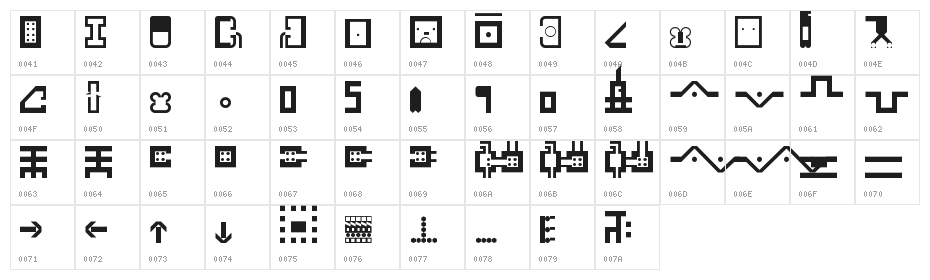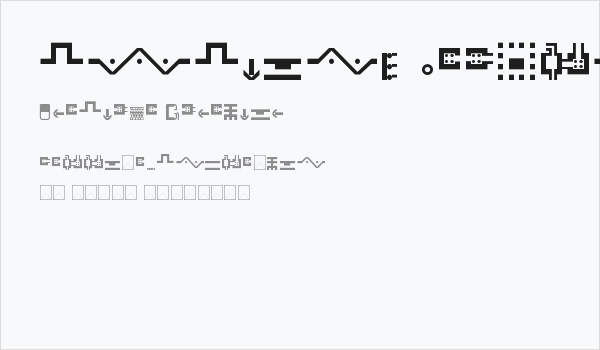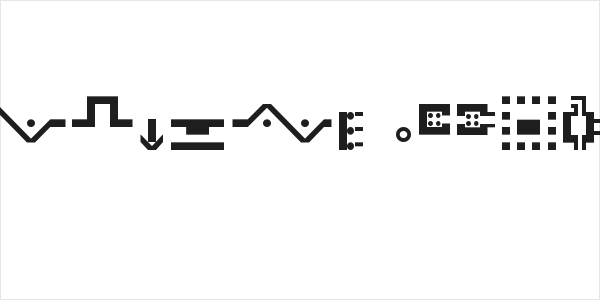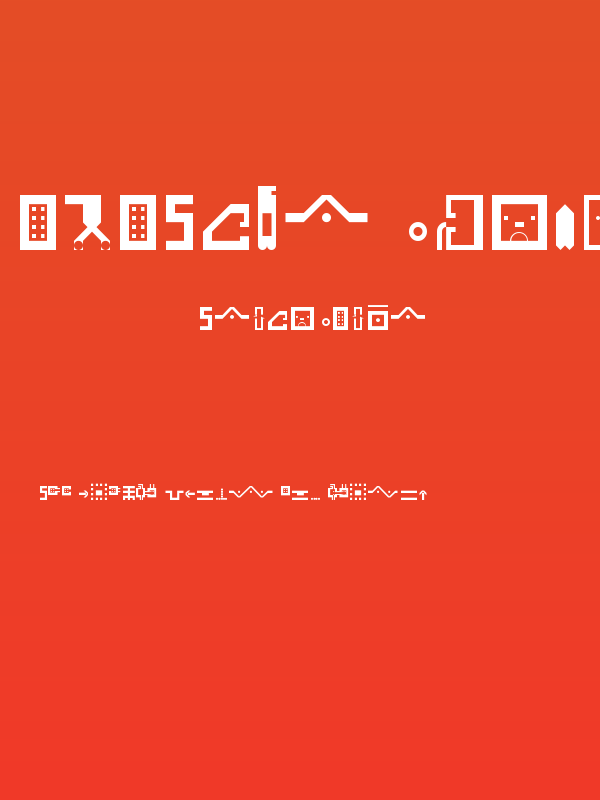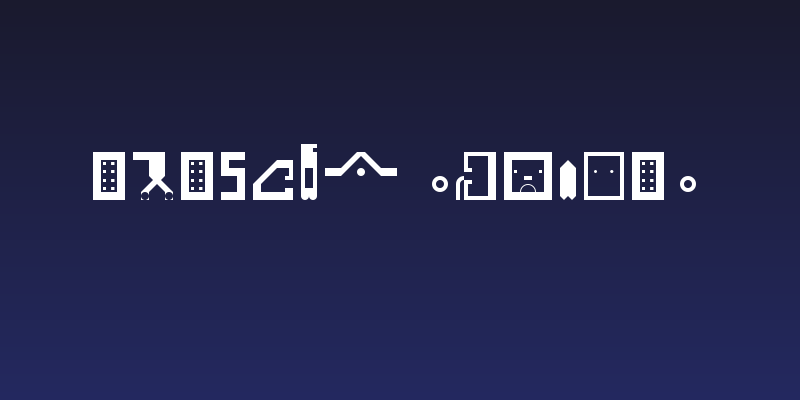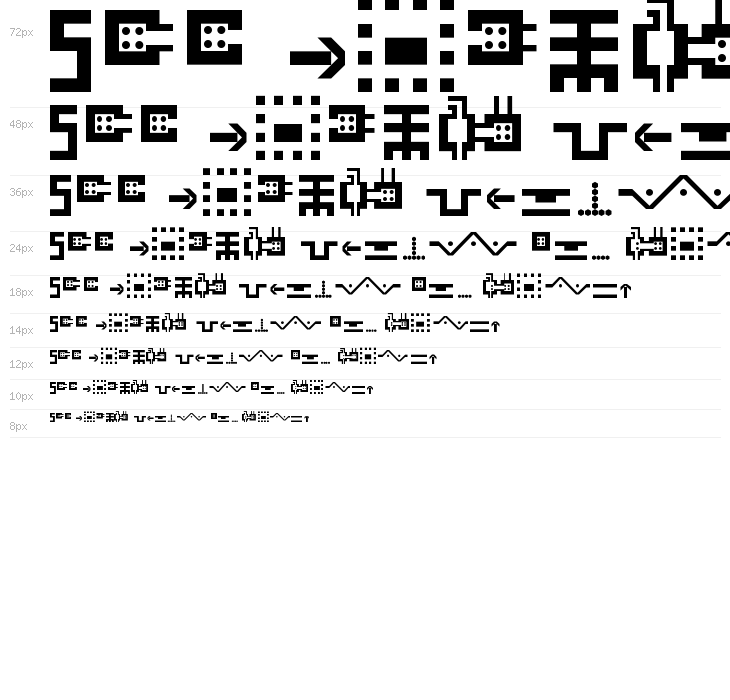
anatomy Regular Font
anatomy Regular Description
This font features a highly abstract and geometric design, with characters composed of bold, block-like shapes and intricate patterns. Each letter and symbol is uniquely crafted, resembling a fusion of modern art and digital iconography. The characters are enclosed in square or rectangular forms, often incorporating dots, lines, and other geometric elements. This design gives the font a futuristic and avant-garde appearance, making it stand out in any visual context. The overall aesthetic is both playful and sophisticated, with a strong emphasis on symmetry and balance.
Overall StyleFuturistic, Avant-garde
Use CaseLogos, Posters, Digital Art
Proposed ProjectsIdeal for digital art projects, modern branding, sci-fi themed designs, and experimental typography.